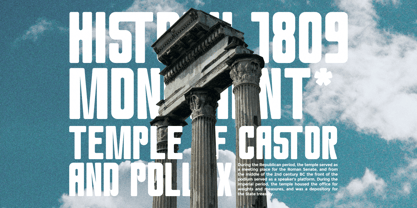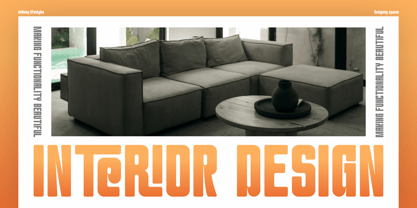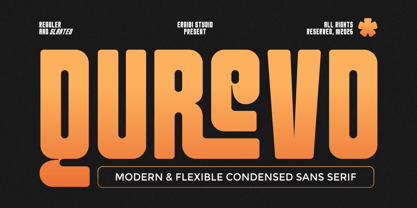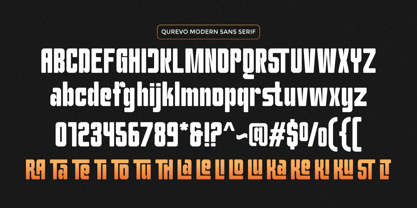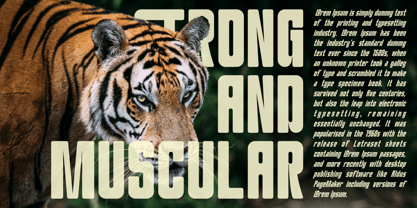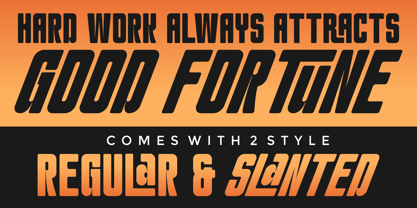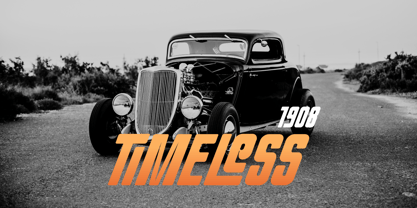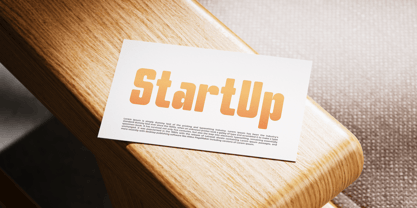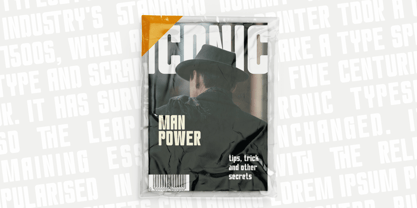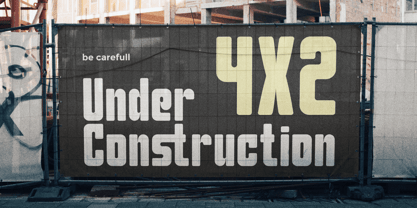
Qurevo
by Ergibi Studio
The Qurevo Font Family was designed by Riyadh Rahman and published by Ergibi Studio. Qurevo contains 2 styles and family package options. More about this family
Qurevo is a modern, flexible condensed sans serif typeface designed to bring clarity, style, and efficiency to any layout. Its clean lines and compact letterforms make it perfect for projects that demand strong visual impact without sacrificing readability.
Crafted with a contemporary aesthetic, Qurevo adapts effortlessly across branding, headlines, posters, editorial design, and digital interfaces. The condensed structure allows more content to fit in tight spaces while maintaining a sleek and confident presence.
Designers: Riyadh Rahman
Foundry: Ergibi Studio